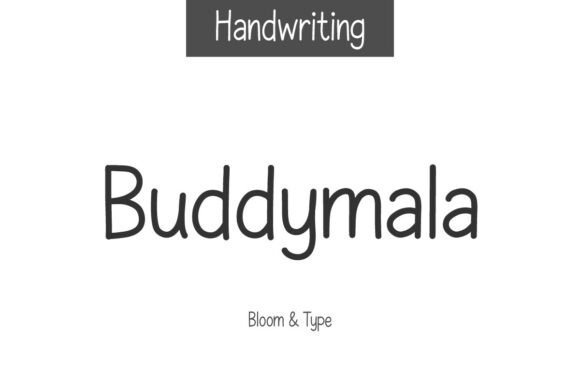
The Perfect Blend of Personality and Clarity: Discover Buddymala Font
Have you ever been inspired by a handwritten note or a playful doodle? For many creatives, the imperfections and character of handwriting can evoke a sense of warmth and personality that digital fonts often lack. That’s where Buddymala Font comes in – a delightful, handwritten font designed to bring a touch of creativity and friendliness to your projects.
Buddymala Font is more than just a font; it’s a tool for designers to add a personal and approachable feel to their work. With its smooth curves and casual flow, it’s perfect for logos, branding, invitations, and social media designs. Whether you’re going for a modern or casual look, Buddymala Font adapts effortlessly, making it a valuable addition to any designer’s toolkit.
Buddymala Font Key Features
- Font Family: Buddymala is a sans-serif font family designed to be highly legible and versatile.
- Character Count: The font family includes over 200 characters, including uppercase and lowercase letters, numerals, and punctuation marks.
- Unique Characteristics: Buddymala features a clean and modern design with subtle rounded edges, making it an ideal choice for contemporary designs and branding.
Buddymala Font Review
As a designer, I was excited to dive into the Buddymala font and see what it had to offer. Overall, I’d say it’s a solid addition to any designer’s toolkit, but it’s not without its limitations.
- Unique aesthetic: Buddymala has a distinct, playful feel that sets it apart from more generic fonts.
- High legibility: Even at smaller sizes, the font remains easy to read and understand.
- Good for display text: Buddymala shines when used for headings and titles, adding a touch of whimsy to your designs.
- Limited language support: Buddymala may not be suitable for languages that require more complex typography.
- No extensive font families: Buddymala is a single font family, which may limit its versatility in certain design projects.
- May not be ideal for body text: While Buddymala works well for display text, it may not be the best choice for large blocks of body text.
Overall, I think Buddymala is a great font for designers looking to add some personality to their projects. While it may not be perfect for every situation, its unique aesthetic and high legibility make it a solid choice for many design applications.
The Buddymala font is ideal for creating playful and youthful designs. Some common use cases include:
– Children’s book illustrations
– Party invitations
– Branding materials for kids’ products or services